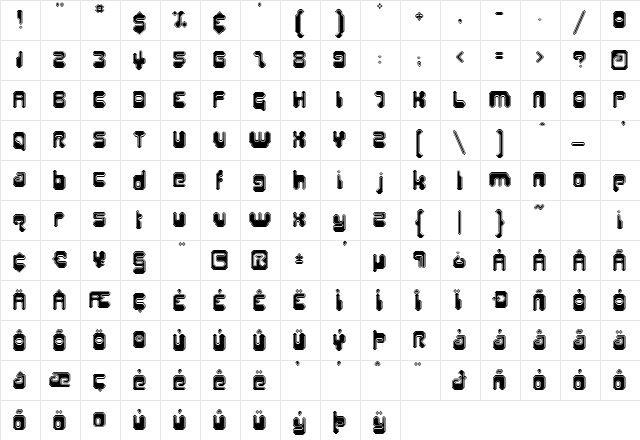
HiroSharp Outline
Design Context for HiroSharp Typeface
HiroSharp brings ornamental detail and strong personality to headlines and identities, where visual impact matters more than quiet functionality.
Font Pairing: Pair with a clean neutral sans-serif for body copy to let HiroSharp's character lead without overwhelming the composition.
Pro Tip: Use HiroSharp exclusively at display sizes — it was designed to be seen, not read at length. Let a neutral companion handle body copy.